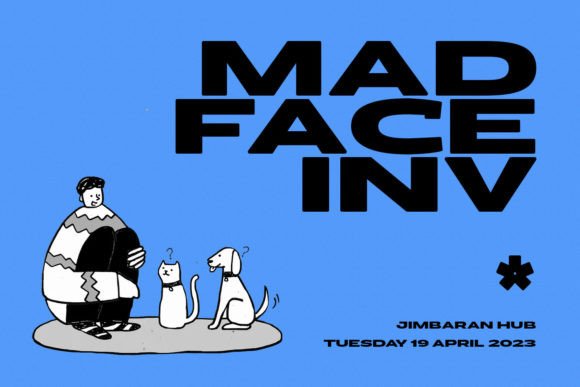
Introducing Edgytic Font: The Bold and Sturdy Sans-Serif for Modern Designs
In the world of typography, fonts play a crucial role in conveying the tone and personality of a brand or design. With the vast array of fonts available, it can be challenging to find the perfect one that captures the essence of your project. However, if you’re looking for a bold and sturdy sans-serif font that exudes strength and durability, look no further than Edgytic Font. In this article, we’ll delve into the world of Edgytic, exploring its unique features, and why it’s perfect for modern and minimalistic designs, especially those related to technology, engineering, or construction.
What is Edgytic Font?
Edgytic is a bold and sturdy sans-serif font that captures the essence of industrial design. With its wide, blocky letters and hard edges, it evokes a sense of strength and durability. The font’s design is inspired by the industrial world, where functionality and practicality are paramount. Edgytic’s rugged and robust appearance makes it perfect for designs that require a strong and attention-grabbing presence.
Key Characteristics of Edgytic Font
- Bold and Sturdy: Edgytic’s bold and sturdy design makes it perfect for headlines, titles, and emphasis text.
- Sans-Serif: The font’s sans-serif design gives it a clean and modern look, making it suitable for minimalistic designs.
- Wide and Blocky Letters: Edgytic’s wide and blocky letters give it a robust and industrial appearance.
- Hard Edges: The font’s hard edges add to its rugged and durable look, making it perfect for designs that require a strong presence.
Perfect Use Cases for Edgytic Font
Edgytic Font is perfect for modern and minimalistic designs, especially those related to technology, engineering, or construction. Here are some use cases where Edgytic excels:
- Technology and Engineering: Edgytic’s industrial design makes it perfect for technology and engineering-related projects, such as logos, brochures, and website headers.
- Construction and Architecture: The font’s rugged and robust appearance makes it suitable for construction and architecture-related projects, such as building signage, construction logos, and architectural renderings.
- Modern and Minimalistic Designs: Edgytic’s clean and modern design makes it perfect for minimalistic designs, such as fashion brands, product packaging, and advertising campaigns.
Typography Tips for Using Edgytic Font
When using Edgytic Font, here are some typography tips to keep in mind:
- Use it for Headlines and Titles: Edgytic’s bold and sturdy design makes it perfect for headlines and titles, where you want to grab the reader’s attention.
- Pair it with a Sans-Serif Font: Pair Edgytic with a sans-serif font, such as Open Sans or Montserrat, for body text to create a harmonious and modern look.
- Experiment with Colors: Edgytic looks great in bold and bright colors, so don’t be afraid to experiment with different color schemes to find the perfect one for your design.
Benefits of Using Edgytic Font
Here are some benefits of using Edgytic Font in your designs:
- Uniqueness: Edgytic’s industrial design makes it stand out from other fonts, giving your design a unique and distinctive look.
- Attention-Grabbing: The font’s bold and sturdy design makes it perfect for grabbing the reader’s attention, especially in headlines and titles.
- Versatility: Edgytic can be used in a variety of design projects, from technology and engineering to fashion and advertising.
In conclusion, Edgytic Font is a bold and sturdy sans-serif font that captures the essence of industrial design. With its wide, blocky letters and hard edges, it evokes a sense of strength and durability. Perfect for modern and minimalistic designs, especially those related to technology, engineering, or construction, Edgytic commands attention and demands to be noticed. By incorporating Edgytic into your design projects, you can add a touch of industrial chic and create a lasting impression on your audience.